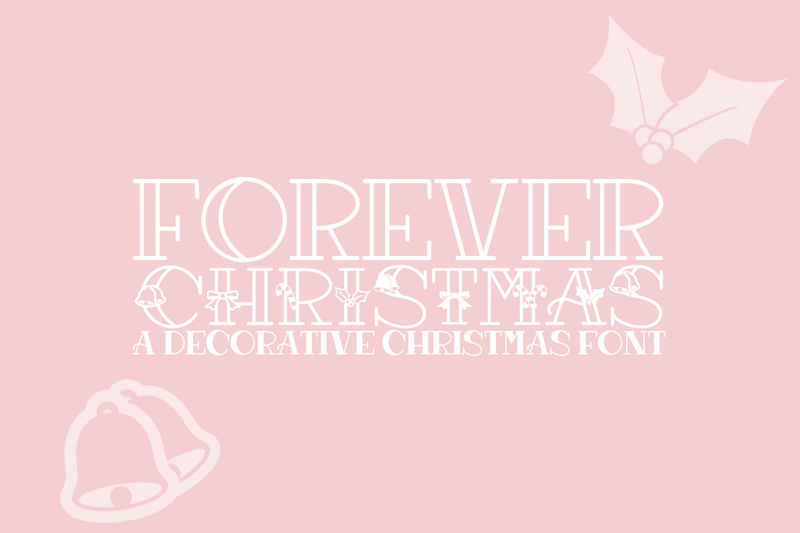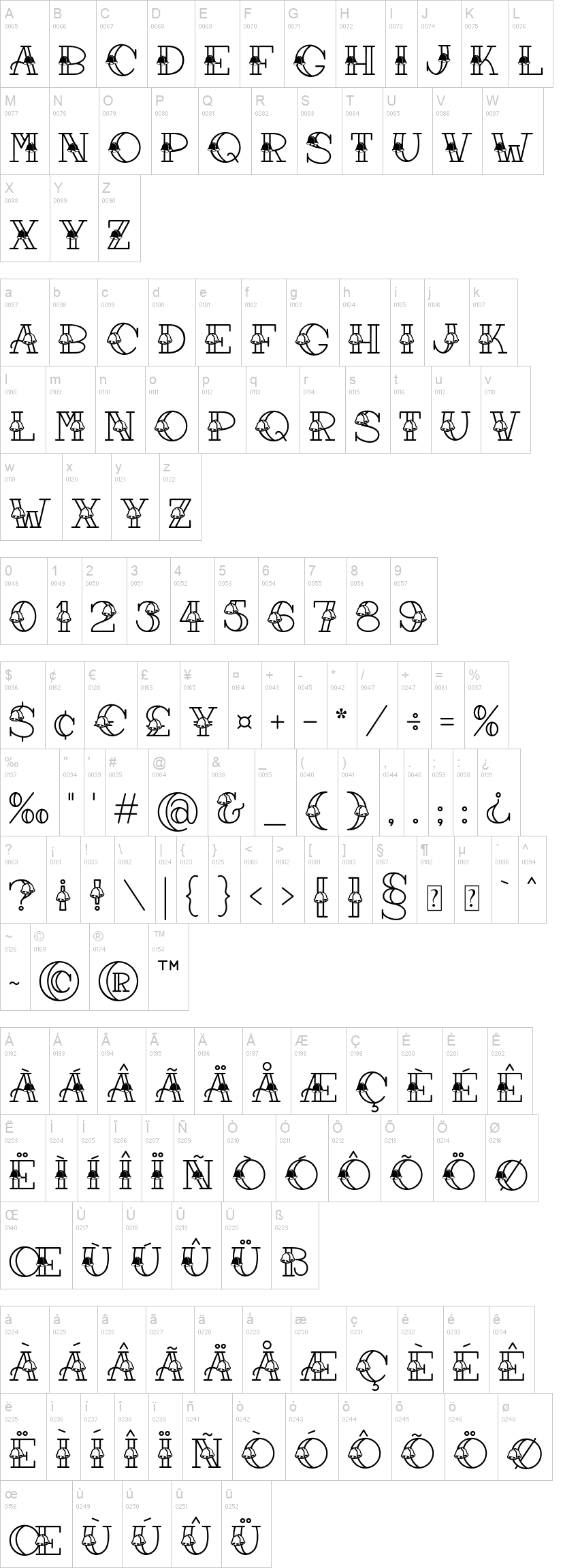
Note of the authorMeet Forever Christmas! A holly jolly Christmas font family!
This big flashy serif font is perfect for Christmas designs. Use it in your cards, monogrammed gifts, signs, and more!